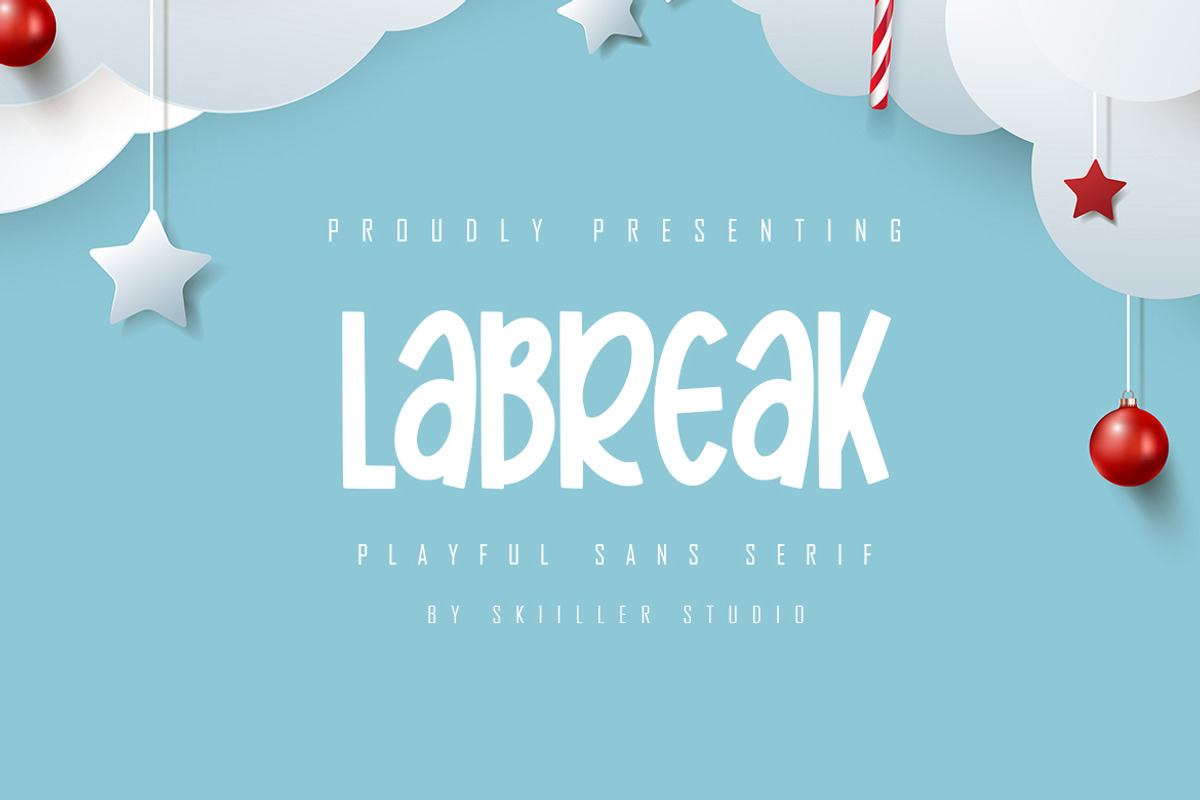
Labreak - Playful Sans Serif Free Download
Labreak – Playful Sans Serif Font Free Download is a cheerful and modern typeface full of personality and fun, perfect for designs that aim to stand out with a creative twist. Please note, you are required to purchase this font for commercial use. It is available for free download for testing and personal projects only.
With its rounded shapes, quirky proportions, and bold presence, Labreak is ideal for kids’ designs, posters, logos, social media graphics, packaging, and branding projects that need a joyful, approachable tone. It strikes a balance between clean readability and playful expression.